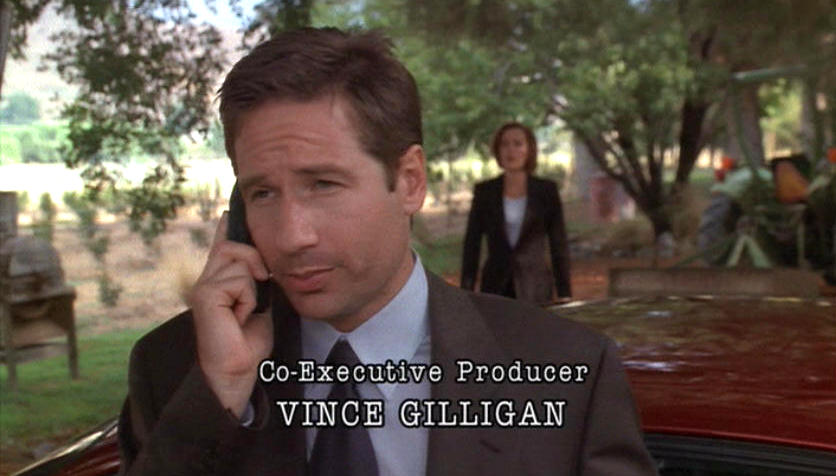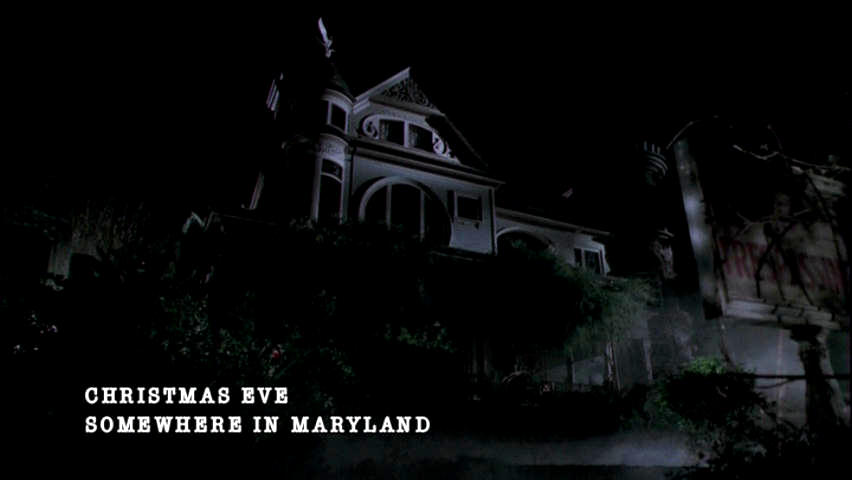
Anyone know what font this is?
Stone Sans in one of its bold varieties, beyond any doubt.
I think it's Stone Sans Semibold, but with a stroke added in a package like Illustrator that's the same colour as the fill, to create a weight that's somewhere between Semibold and proper Bold.
However, it's a big family and I may not have every variant installed, so there may be an 'off the shelf' weight that matches this.
what font do they use on heroes?
It looks very similar to the Sin City font too. Is it custom made for the show?
no sorry - the 'other' font they use for the episode title:
similar to this font from Sin City (which i imagine is almost certainly just Frank Miller's handwriting):
whilst i'm thinking about it, can anyone help me with this one. It's the typewriter font from the X-Files:
Is it just bog standard courier?
EDIT: i think its the same font as this one if it's any clearer:
The one I provided an example of is certainly not Gill Sans. I had to use Gill Sans as a corporate font for the best part of five years and know it inside out. Whether that's a good thing or not is entirely another question. 😀
Take a look at the cap R. 😉
Heroes also use some font from here.
My other guess would be Avant Garde Md BT or Furtura Md BT for the Heroes logo.
I suspect that it's been tweaked a fair bit... look at the differences between the various A's for one thing.
It's very similar to CG Busorama though, and the dates tally – the typeface is from 1970, the film poster from 1971.